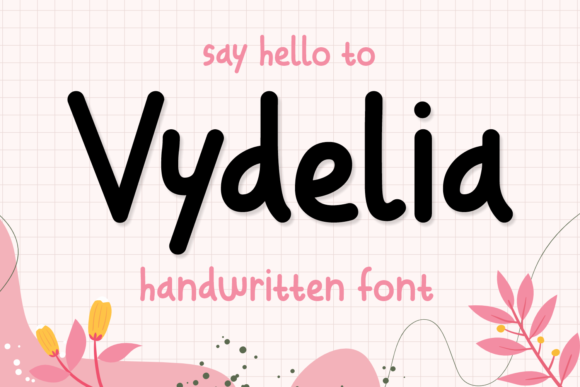
Introducing Vydelia Font, the enchanting script font crafted to captivate your senses and elevate your designs to new heights. Inspired by the beauty of handwritten notes, Vydelia exudes a warm and inviting charm that will leave an unforgettable mark on your audience.
Step into a world of endless possibilities, where Vydelia's versatile nature empowers you to unleash your creativity. Whether you're crafting stunning logos, designing eye-catching invitations, or creating captivating social media posts, Vydelia effortlessly adapts to your vision, transforming your words into works of art.
With its graceful curves and playful strokes, Vydelia evokes a sense of warmth and intimacy that is sure to resonate with your target audience. Each letter dances across the page, carrying with it a touch of elegance and a hint of whimsy. The result? Designs that speak to the heart and leave a lasting impression.
Imagine the impact on your website as Vydelia's captivating characters draw visitors in, inviting them to explore the depths of your offerings. Each scroll becomes an immersive experience, as the font's charming personality engages and captivates, guiding users through your content with effortless grace.
For social media campaigns, Vydelia is a game-changer. Its ability to convey emotions and create connections will amplify your message, reaching a wider audience and sparking meaningful conversations. Let Vydelia be your secret weapon, transforming your posts into shareable masterpieces that ignite engagement and drive results.
But Vydelia is more than just a font; it's a testament to the power of creativity. When paired with your imagination, it becomes a boundless force, enabling you to craft designs that redefine the ordinary and leave an enduring legacy.
So, if you're ready to add a touch of magic to your designs and embark on a creative journey like no other, Vydelia Font is your perfect companion. Its enchanting charm and boundless versatility will inspire you to create designs that captivate, engage, and leave a lasting impression.